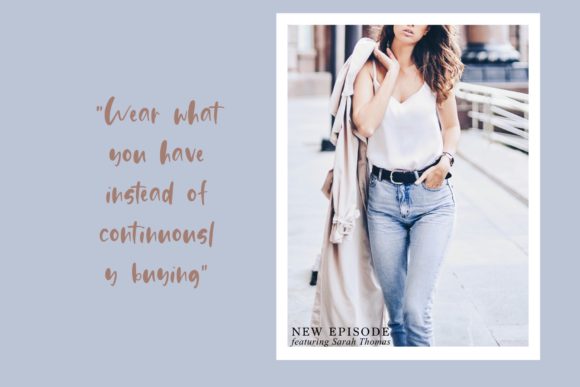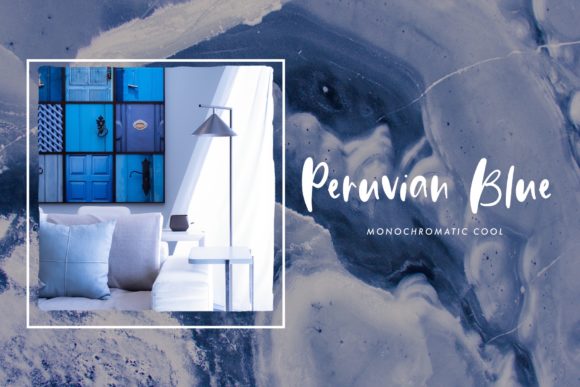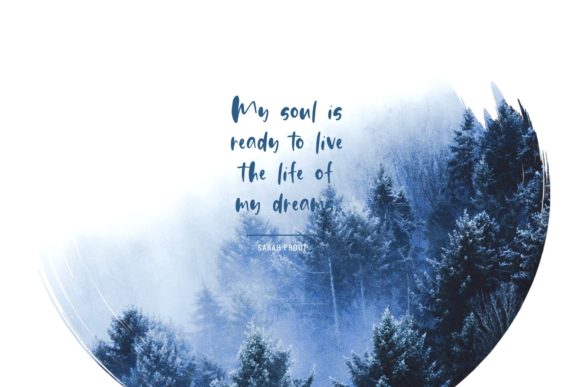
Introduction to No More Font
Have you ever stared at a blank page, struggling to find the perfect font to bring your creative project to life? We’ve all been there – the blank page staring back, taunting us to come up with the perfect combination of words and design. But what if you had the perfect font, one that effortlessly stands out on busy backgrounds, yet remains elegant and refined when used as a standalone headline?
Enter No More Font, a stunning handwritten font that’s sure to become a favorite among designers. This high-quality font is the perfect design resource for any creative project, from a simple blog post to a complex marketing campaign. And the best part? No More Font is available for free download, making it an invaluable asset for designers of all levels.
Key Features of No More Font
- High-quality design resource with a transparent background, perfect for creative projects.
- No More Font offers a unique, handcrafted design that sets it apart from generic fonts, adding a touch of personality to creative projects.
- Perfect for use in digital and print materials, including logos, icons, graphics, and more.
Honest Review: No More Font
I recently stumbled upon No More Font, a free download that has been a game-changer for my creative projects. This design resource is a treasure trove of high-quality fonts that can elevate any project.
What works well: ✨ The variety of fonts is impressive, ranging from modern sans-serifs to elegant scripts. I’ve found myself using No More Font for everything from logo designs to social media graphics. The fonts are all high-resolution, making them perfect for printing or using on high-definition screens.
- High-quality fonts: No More Font has some of the best fonts I’ve ever seen.
Overall, I’m thoroughly impressed with No More Font. It’s a fantastic resource for designers, and I’ve already seen a significant improvement in my creative projects. If you’re looking for high-quality fonts without breaking the bank, give No More Font a try.
No More Font
No More Font is a high-quality design resource offering a wide range of fonts perfect for any creative project. With a transparent background, you can easily integrate these fonts into your design.
Tips for Getting the Most Out of No More Font
Use the fonts in combination with other design elements to create a cohesive look. Experiment with different font styles and sizes to achieve the desired effect.
No More Font is perfect for creating invitations, posters, and other design projects that require a unique and eye-catching font. You can also use the fonts for personal projects, such as creating a logo or branding materials.